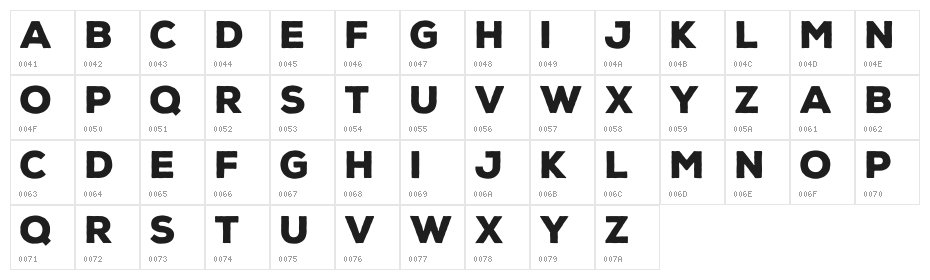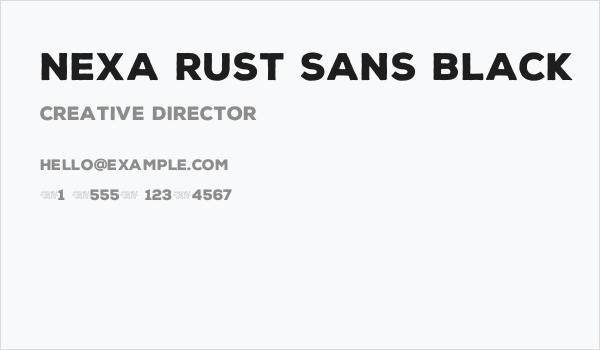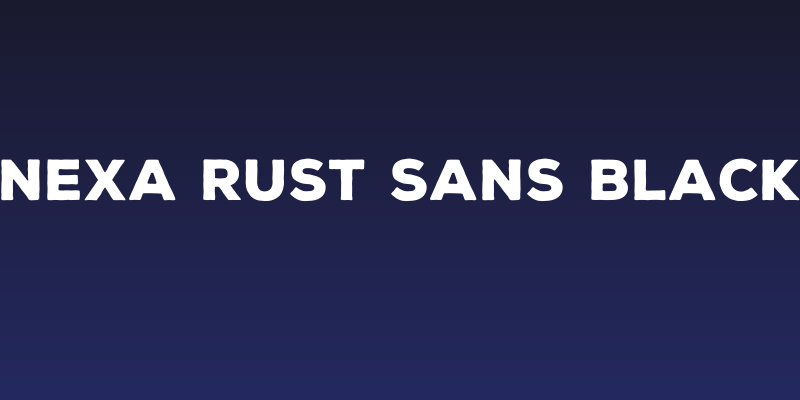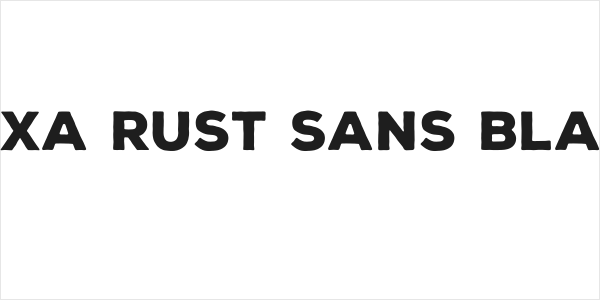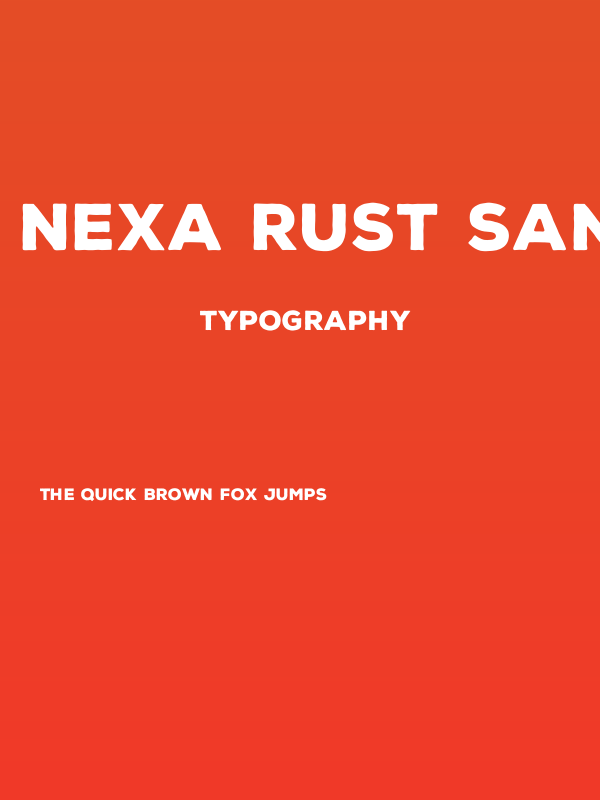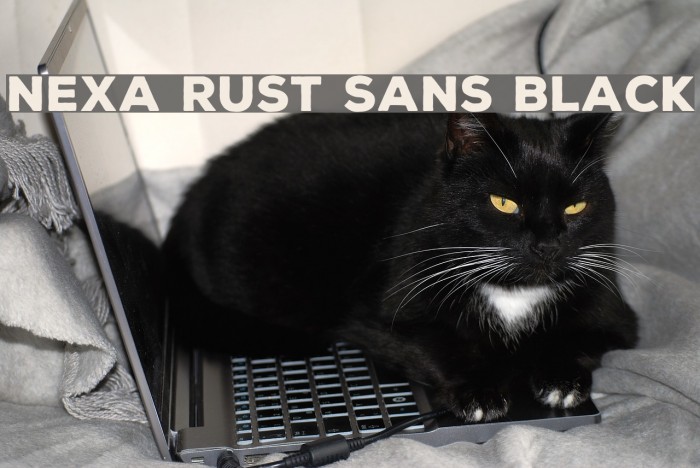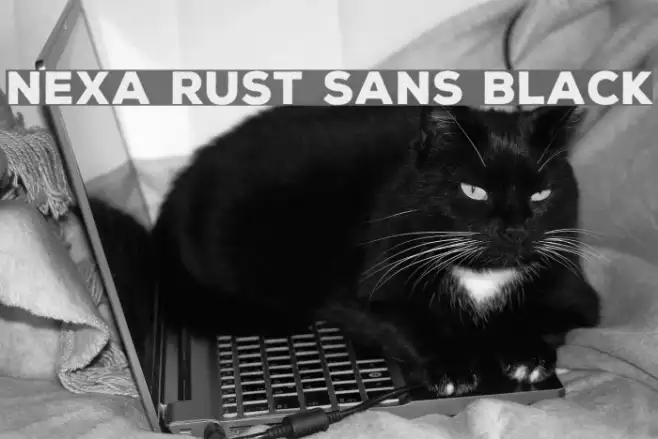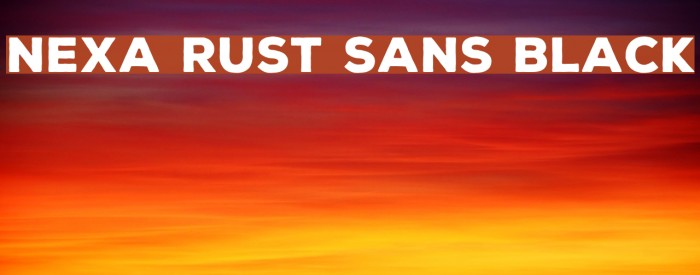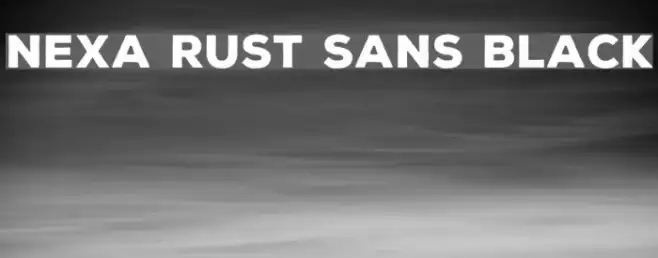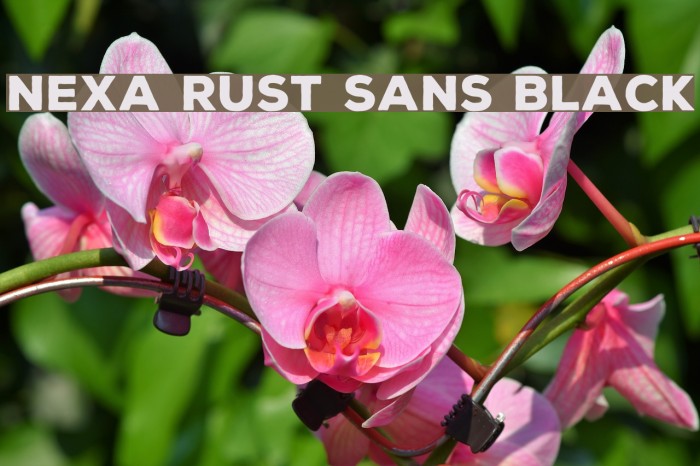
Nexa Rust Sans Black Font
Nexa Rust Sans Black Description
This font features a bold and robust design with a strong presence. The characters are crafted with a slightly distressed texture, giving them a rustic and vintage appeal. The uppercase letters are uniform in height, while the lowercase letters maintain a consistent baseline, enhancing readability. The numerals are bold and clear, matching the overall style of the alphabet. Special characters are included, maintaining the same rugged aesthetic. This font is perfect for projects that require a bold statement with a touch of vintage charm.
| Overall Style | Vintage |
| Proposed Projects | Ideal for branding, posters, headlines, and any design needing a strong, vintage touch. |